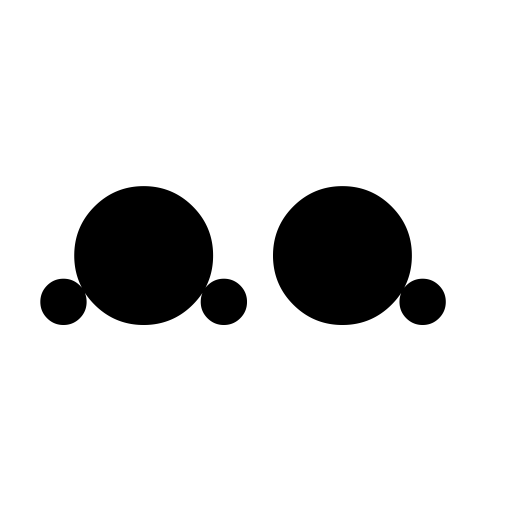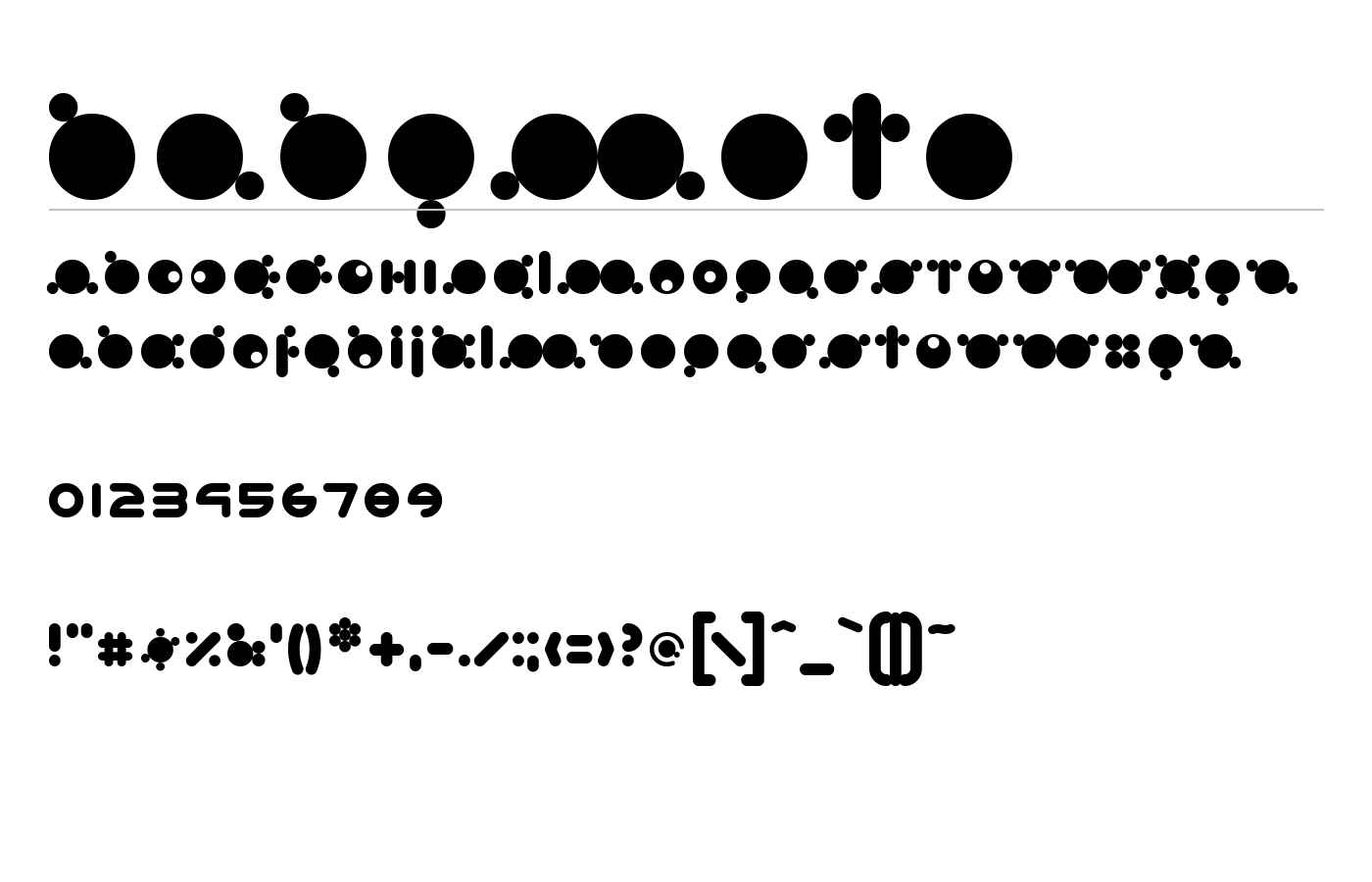
Babymoto is a bold, futuristic sans serif font characterized by its rounded, geometric forms and playful use of thick strokes combined with small circular terminals. Its highly stylized, almost techno-meets-childlike appearance makes it ideal for creative branding, logos, and projects that seek a modern, quirky, and friendly vibe. This font stands out in display uses where a unique, eye-catching personality is desired.
Babymoto Font
About Babymoto Font